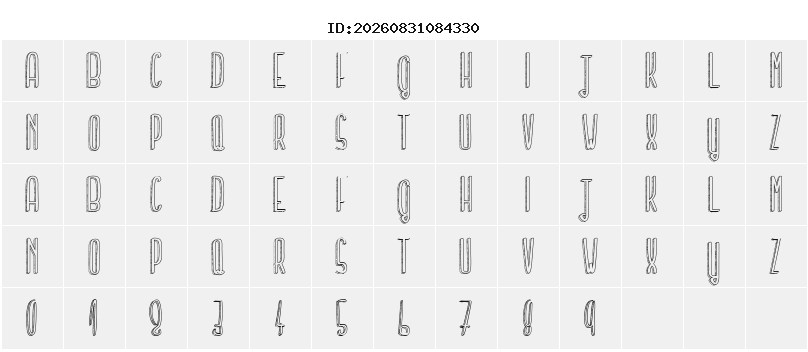
• Font Name: Tell me a secret
• Designer: M.K.V
About Tell me a secret.ttf
Tell me a secret.ttf is a modern, elegant sans-serif font designed for ultimate readability and visual harmony. Perfect for branding, headlines, web design, and print materials.